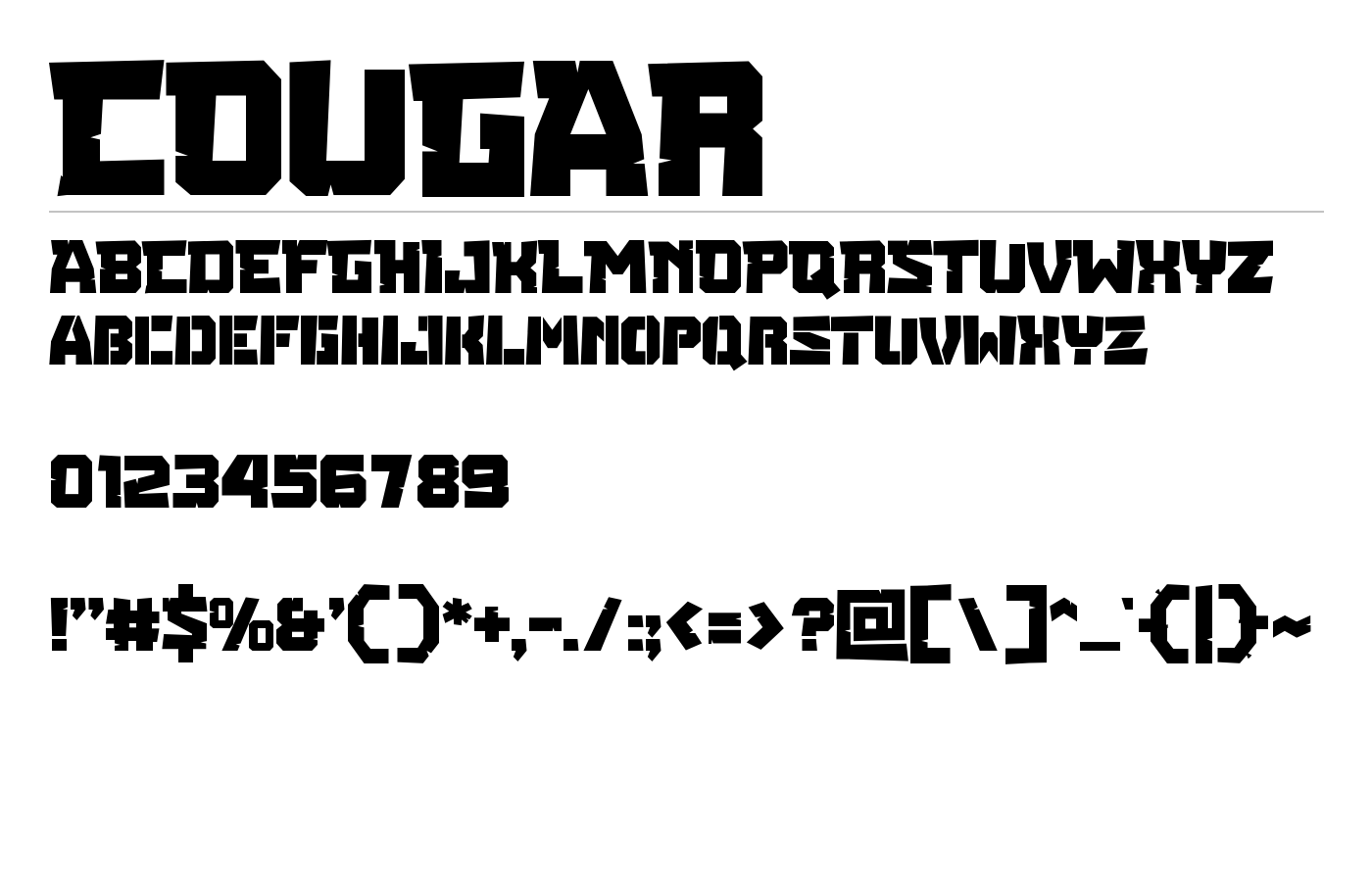
Cougar is a bold, blocky sans serif font with a strong, rugged character, featuring thick, uneven strokes and a condensed width that gives it a powerful presence. Its jagged edges and high contrast between thick and thin elements lend it a raw, edgy feel, making it ideal for attention-grabbing headlines, logos, and posters that want to convey strength and a slightly aggressive, adventurous vibe. This font works well in branding and creative projects where a modern yet tough and dynamic look is desired.
Cougar Font
About Cougar Font